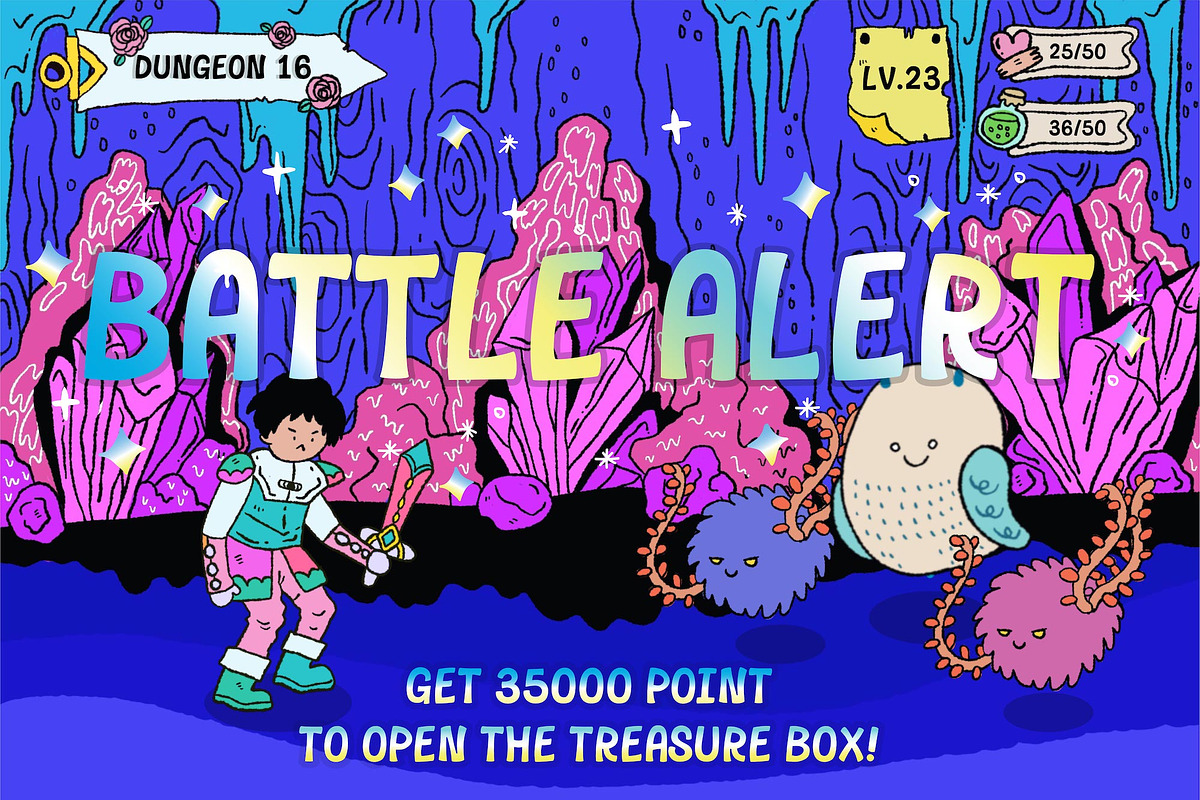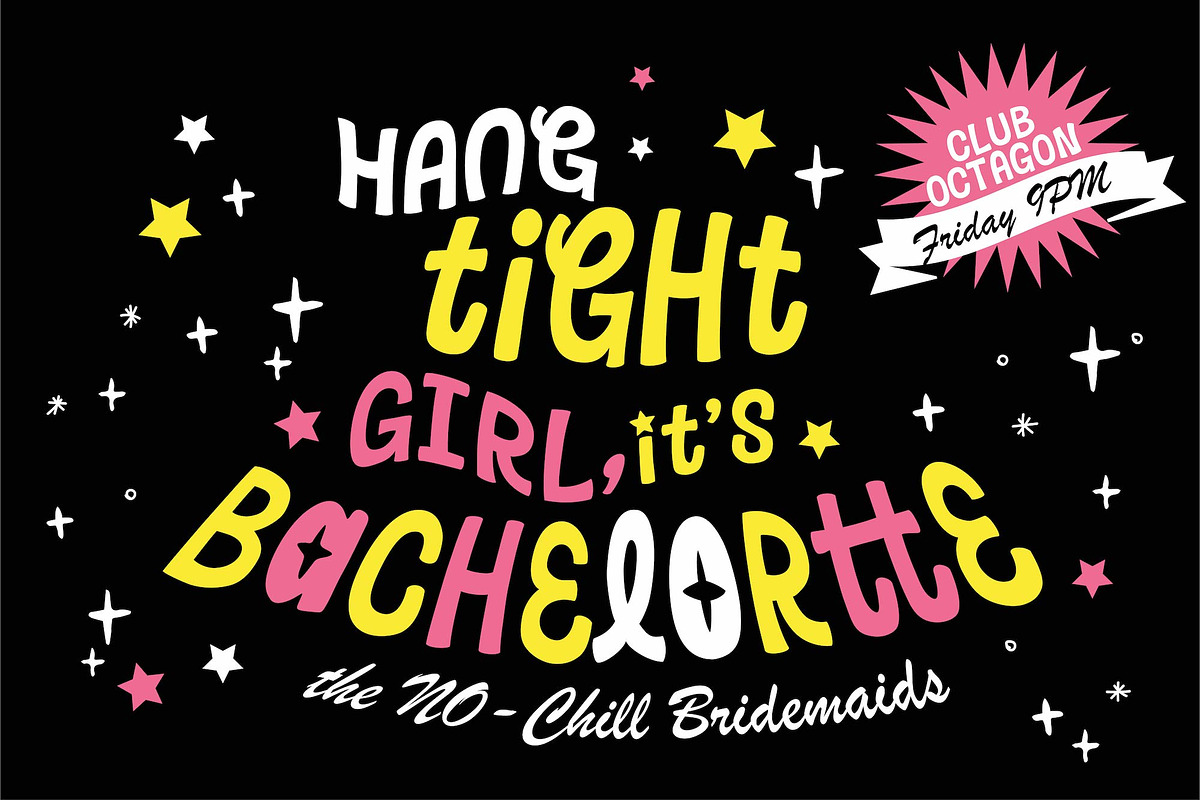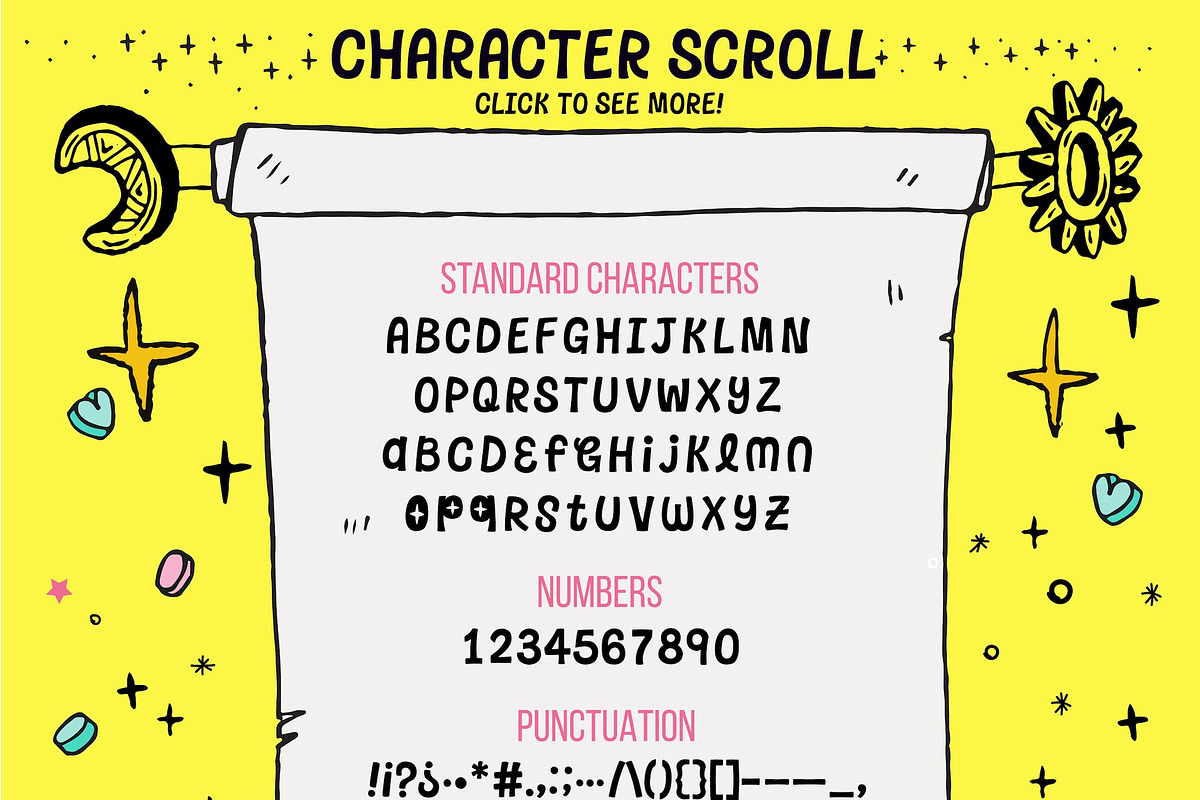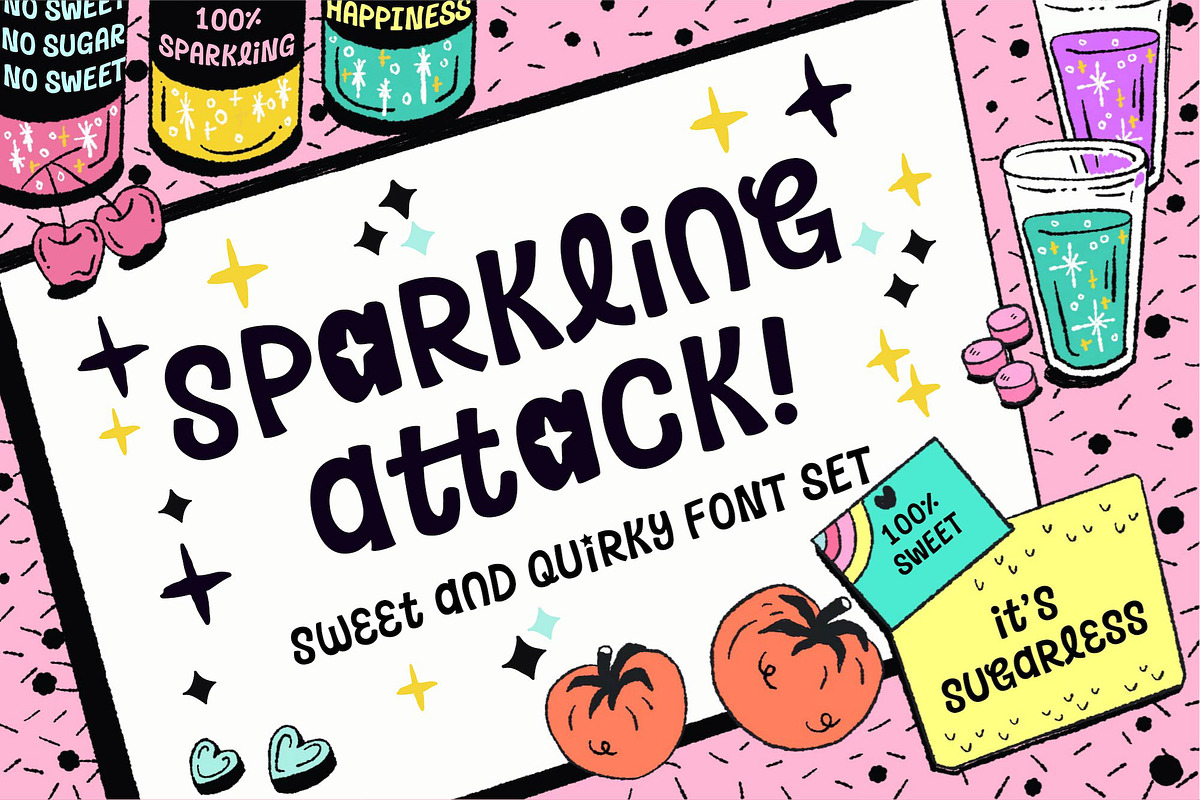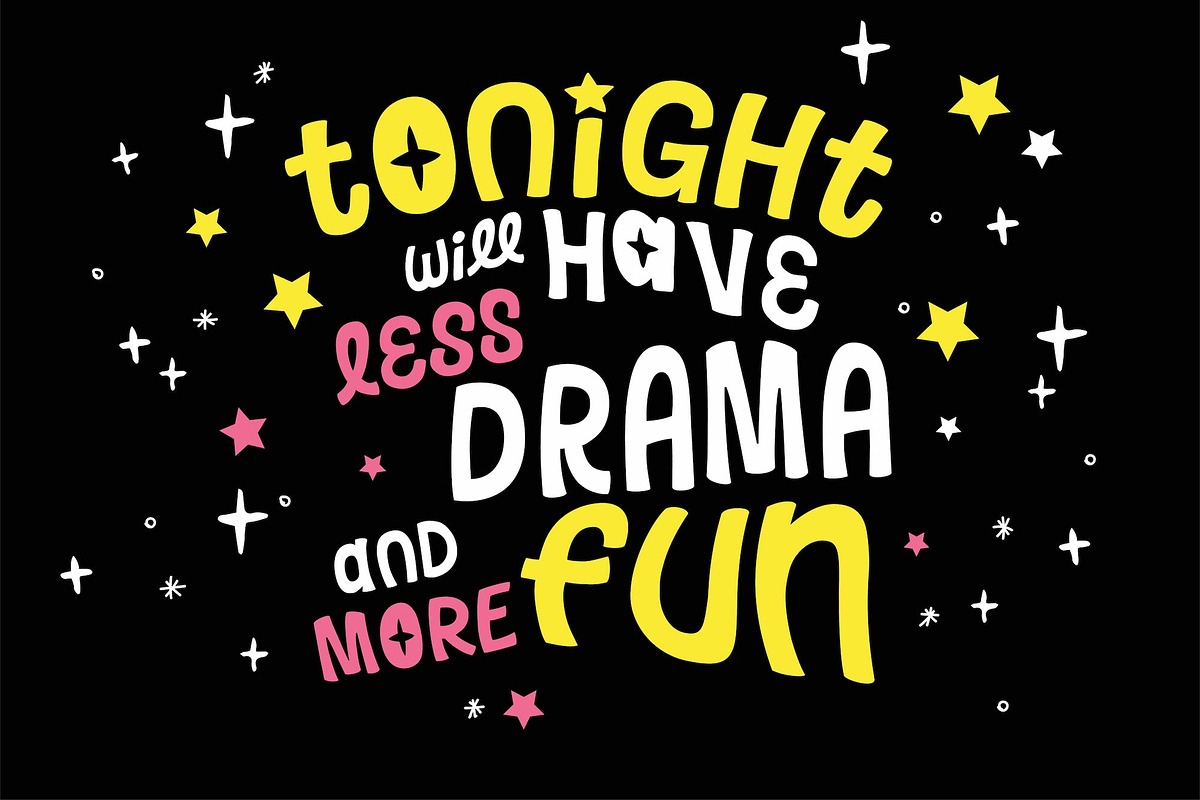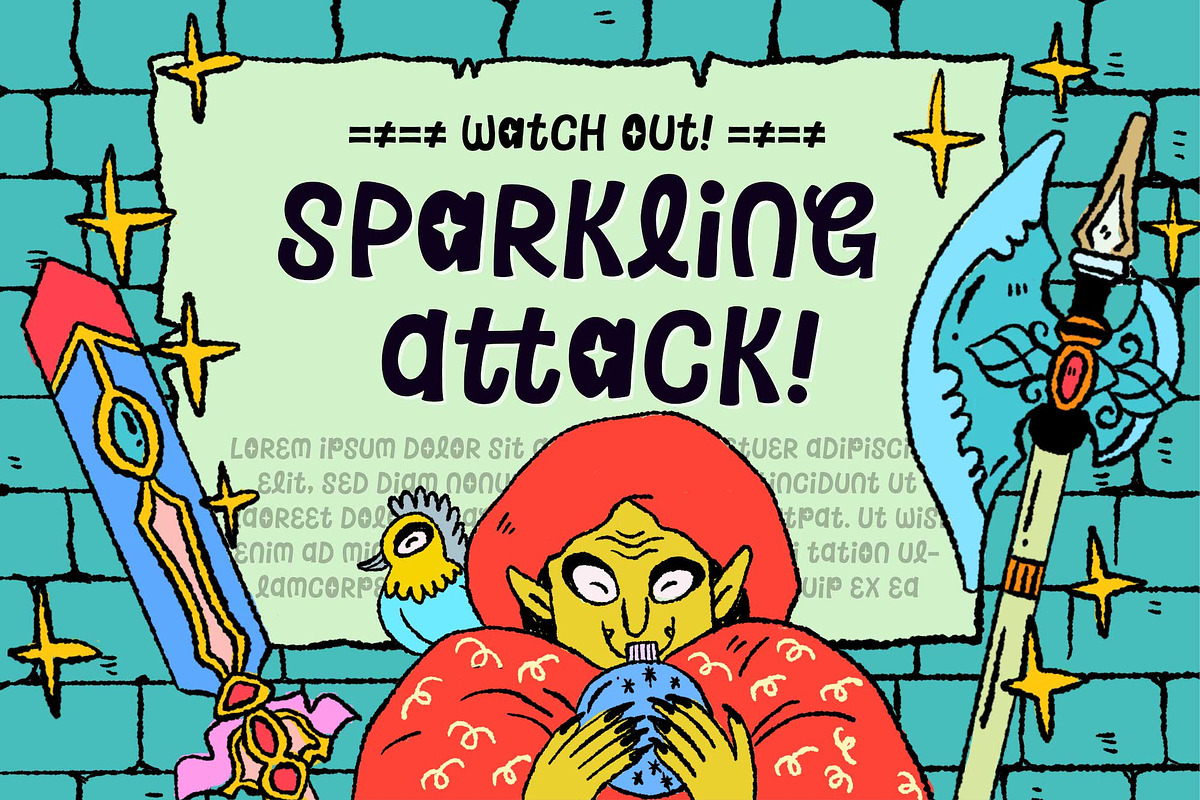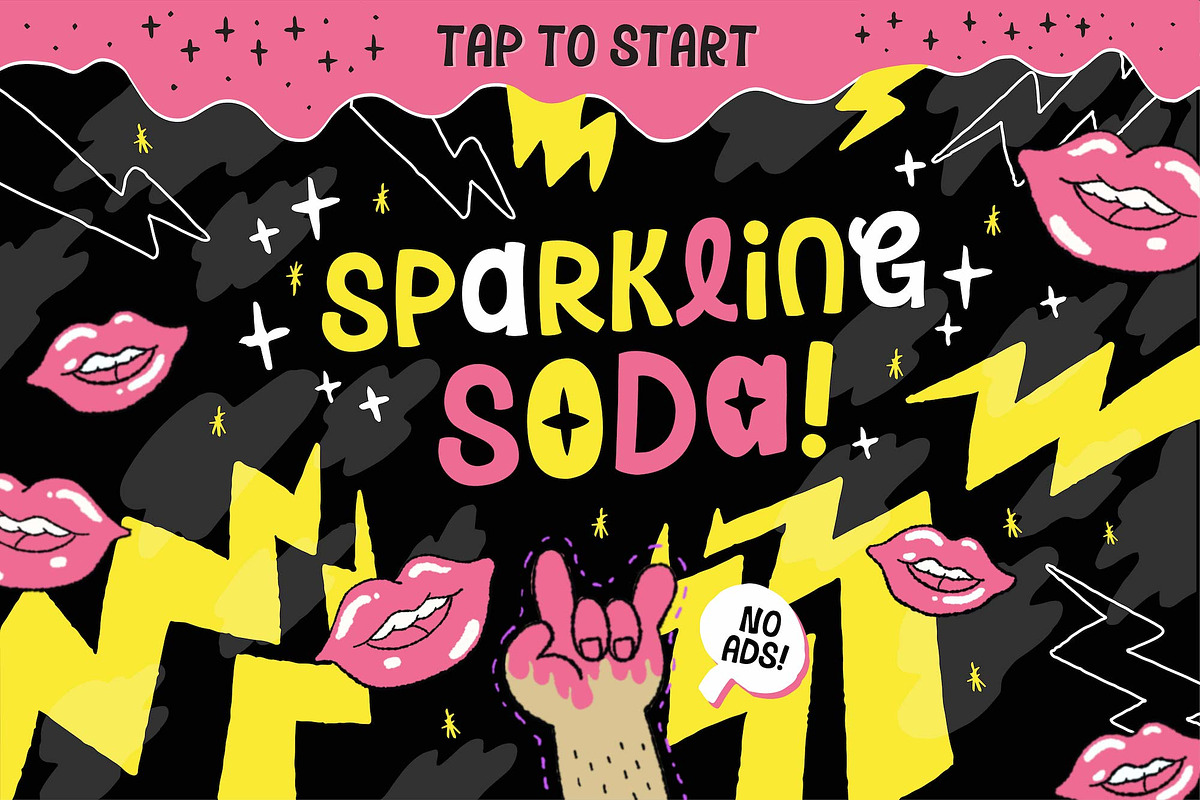
Sparkling Attack! Font
I've always been a big fan of games, cartoons, fantasy world and retro mood. The neon bright color scheme of 80-90s, fun and playful game culture and inked comic books inspired me to create this SPARKLING ATTACK typeface. This font has its own personality which is fun, quirky and still so sweet.
This font will shine on games, apps, cartoons, blogs and website design, of course, and also on logos, branding, book covers, kids books and stationery, t-shirts, posters and social media projects.
I love the hip vibe which created by Sparkling Attack's uppercase and lowercase letter mixed each other. Enjoy this sweet and quirky attack and some letter's sparkles. Teamed up with some Stylistic Alternates and Ligatures to shine more. Oh, do not forget the Multilingual support!
Numbers and punctuations; Basic numbers are Tabular Lining Figures type, suitable for game scores. Proportional Lining Figures type is also included, as the alternative.